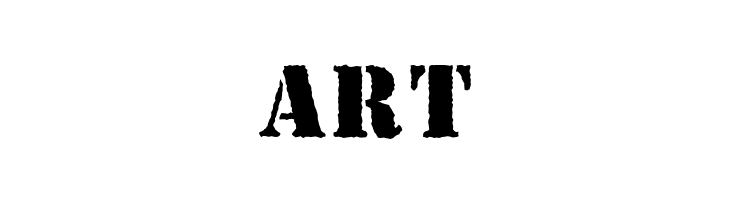
Gideon s Army Font
A bold, stencil-style font with a rugged, military-inspired design.
ArrowheadLakeSunlit Font
A bold, geometric font with a three-dimensional effect and sharp angles.
SketchLogs Font
A hand-drawn, sketch-style font with playful and artistic strokes.
QuiltedStippled Font